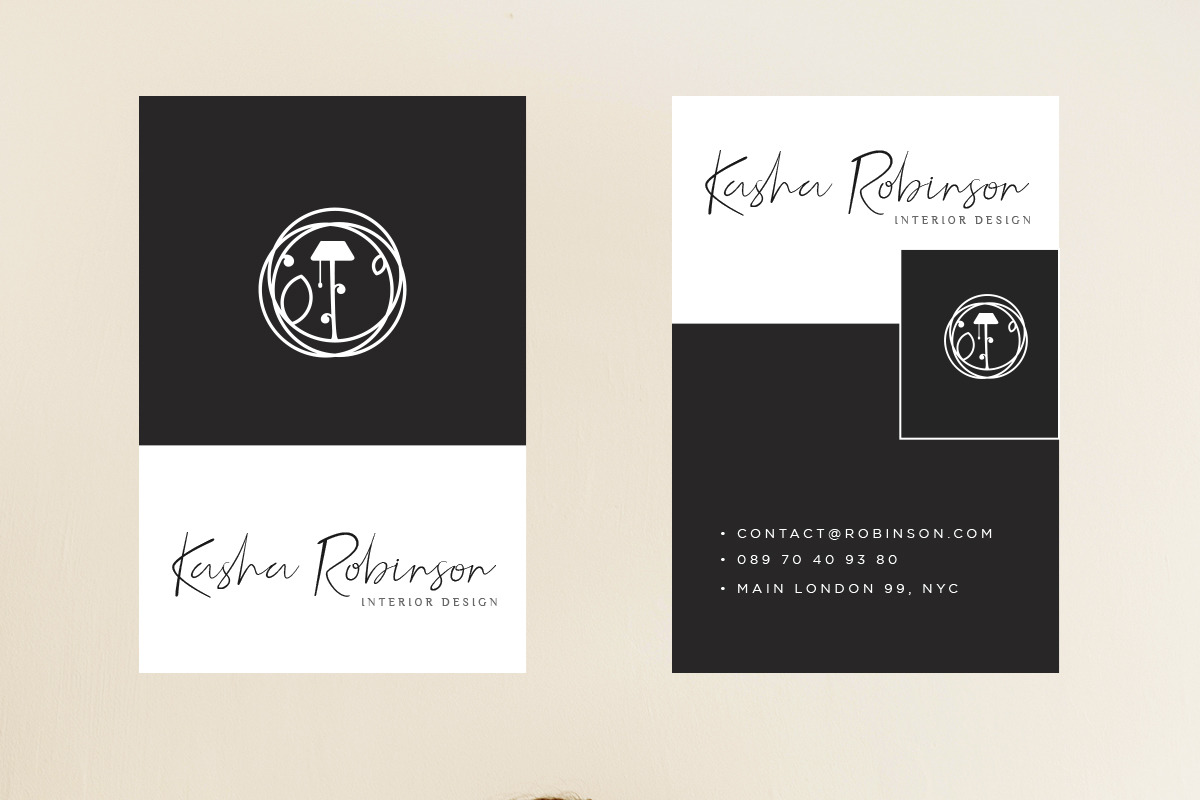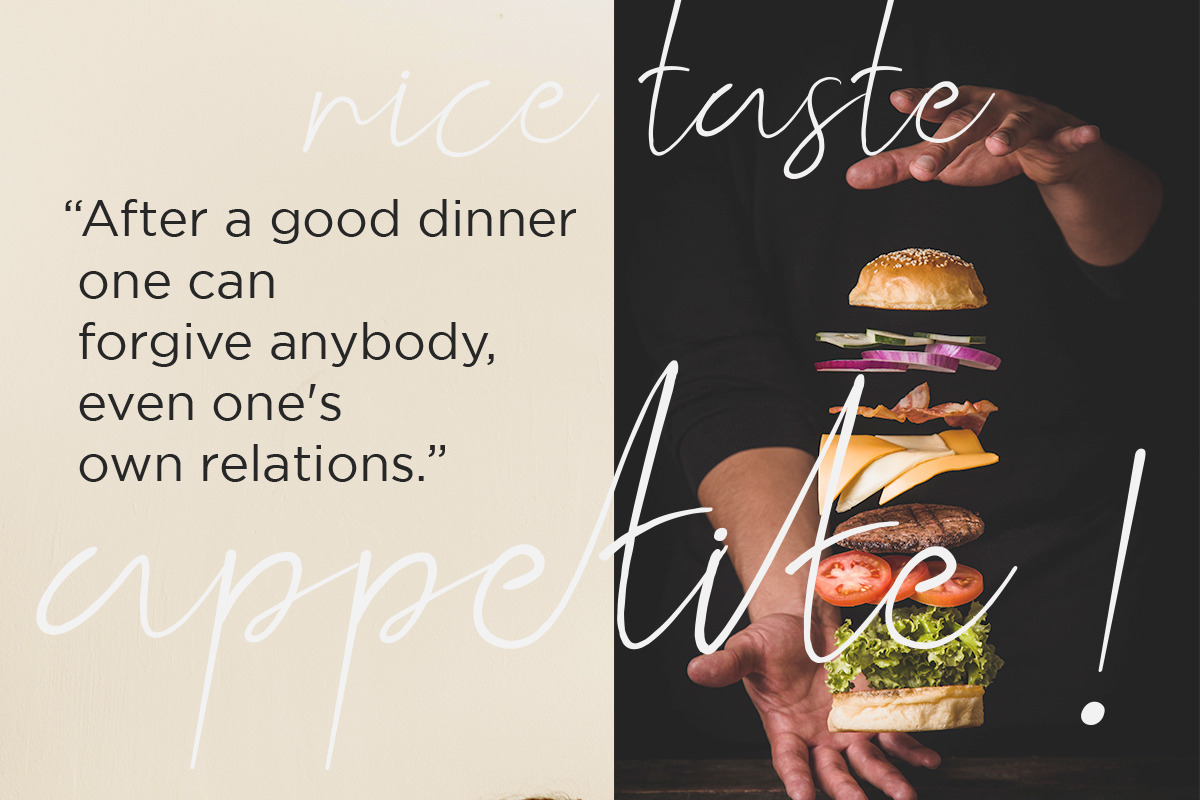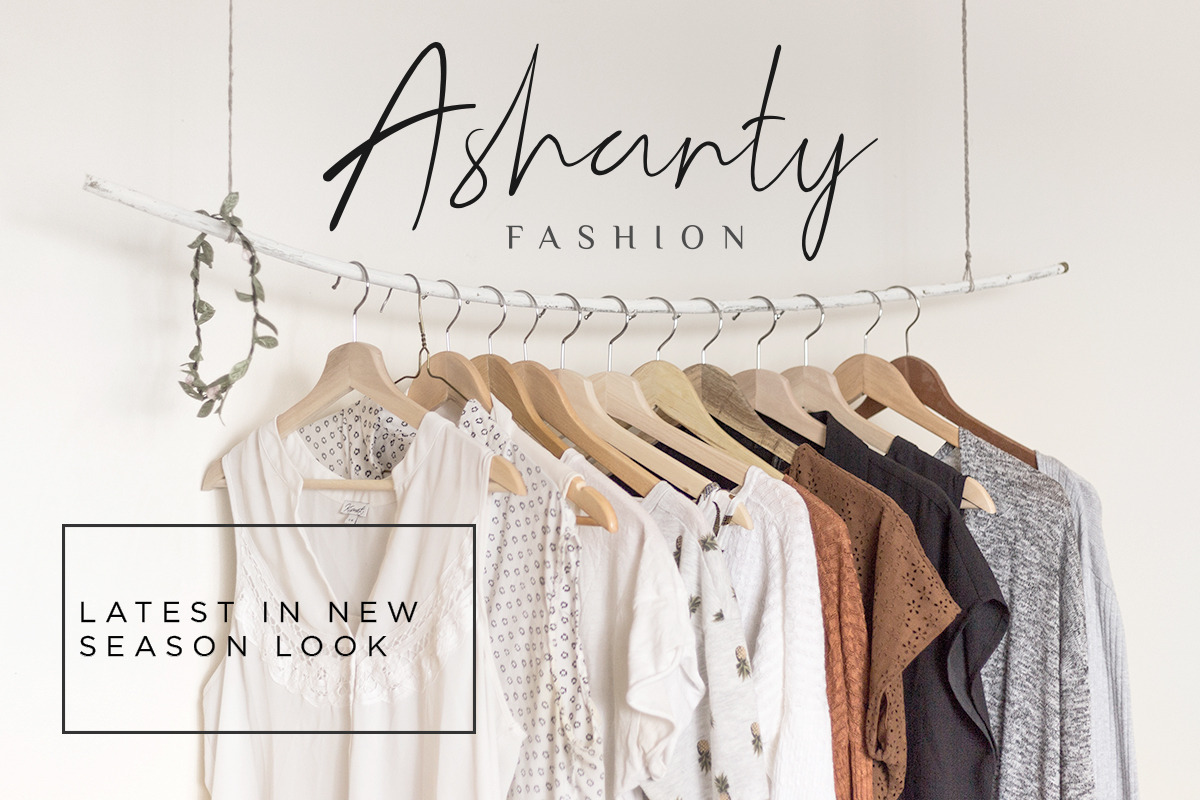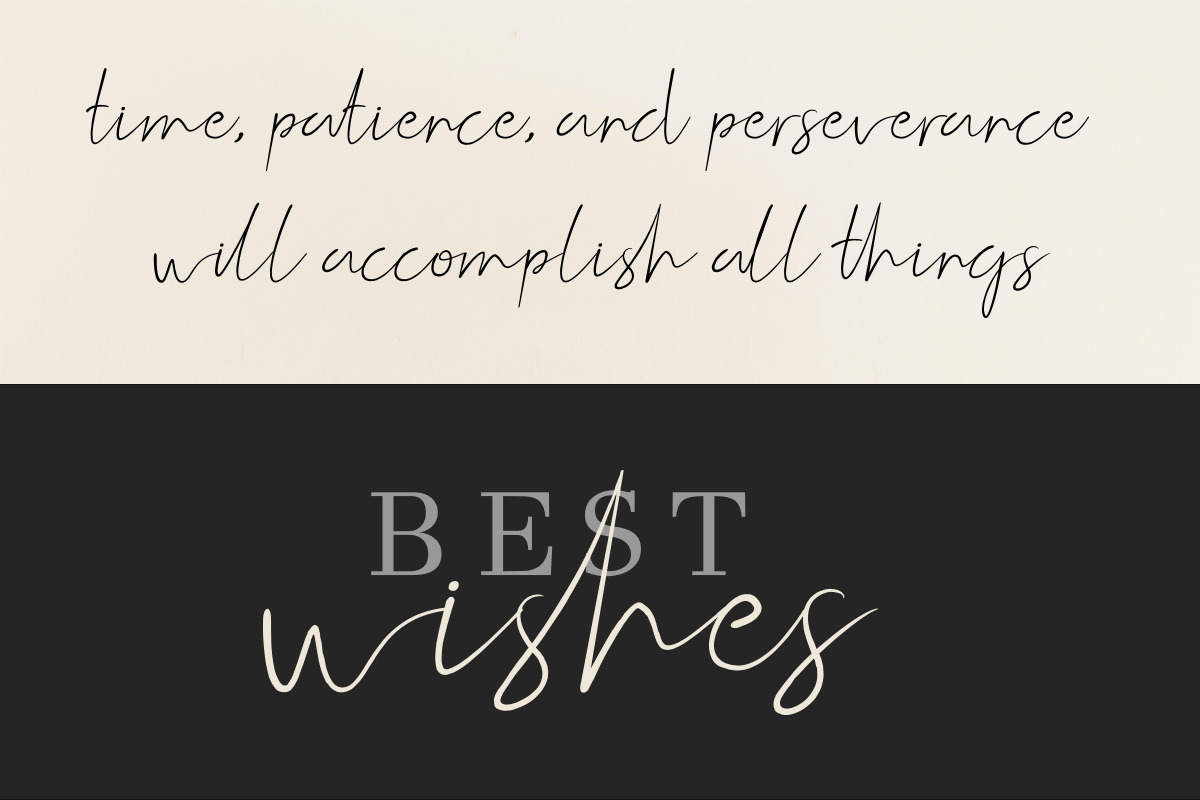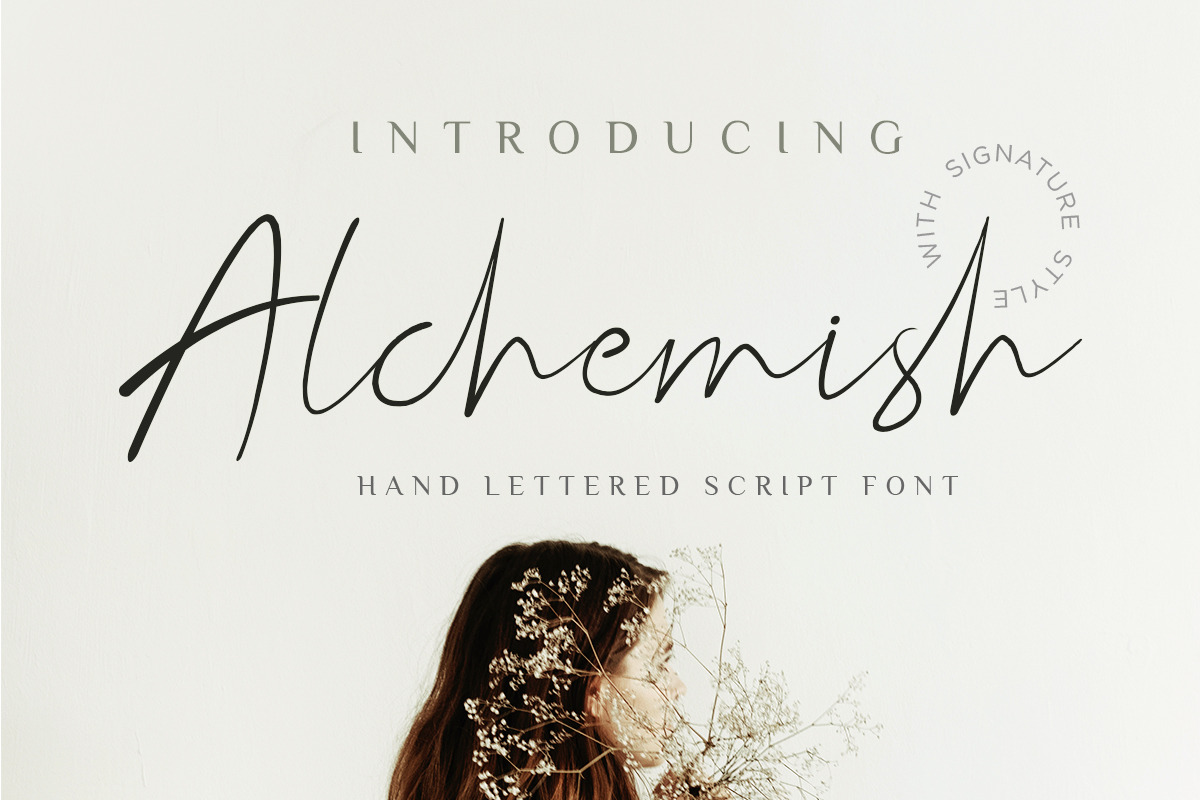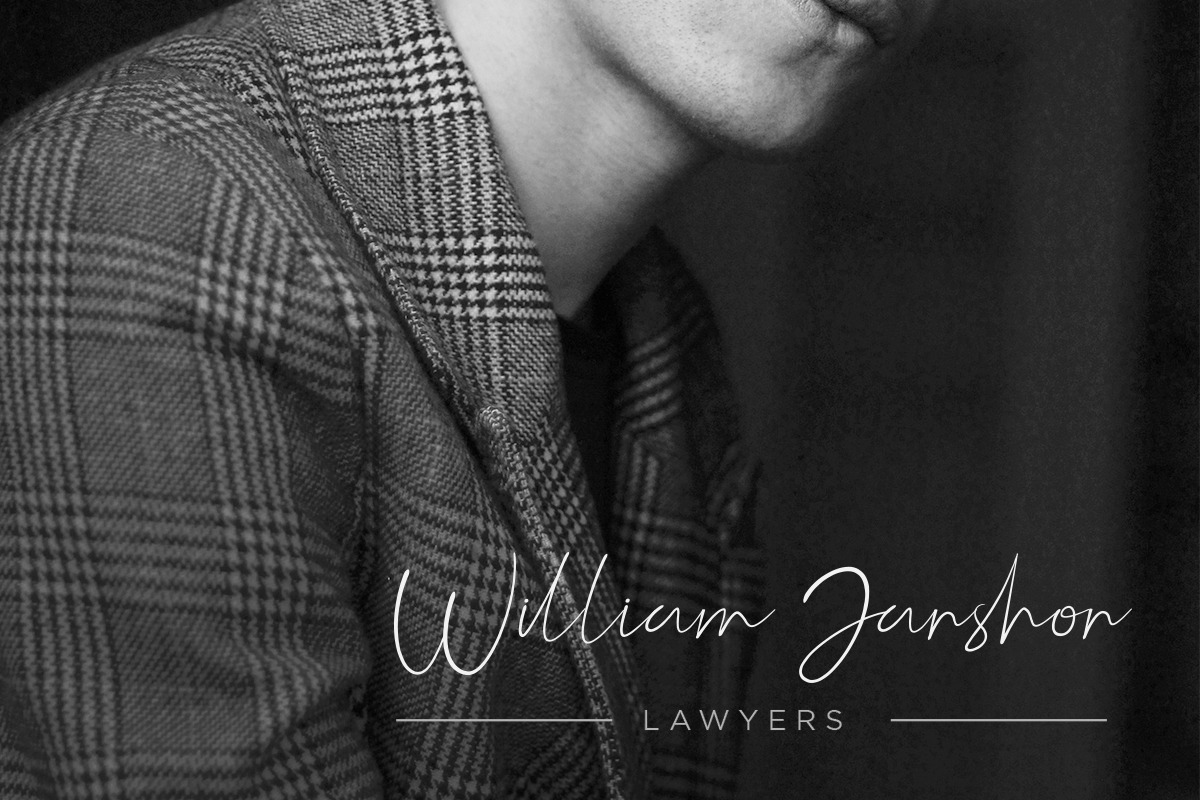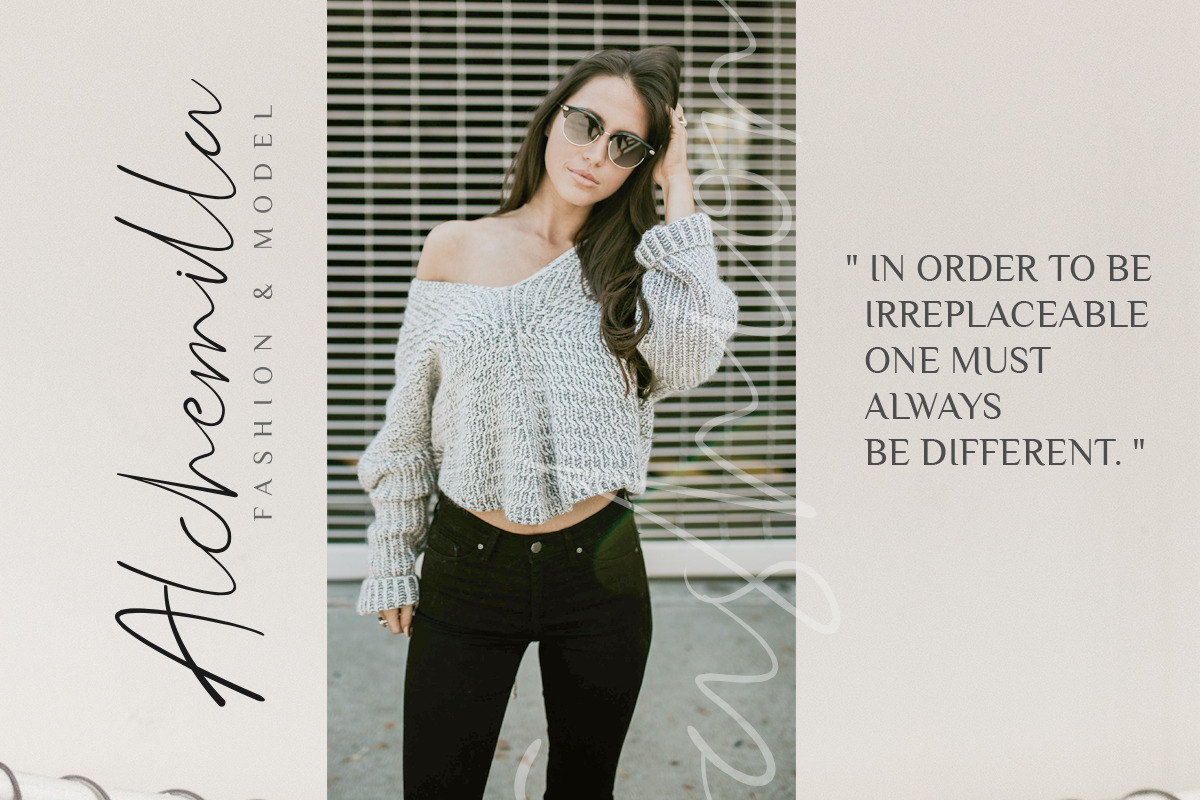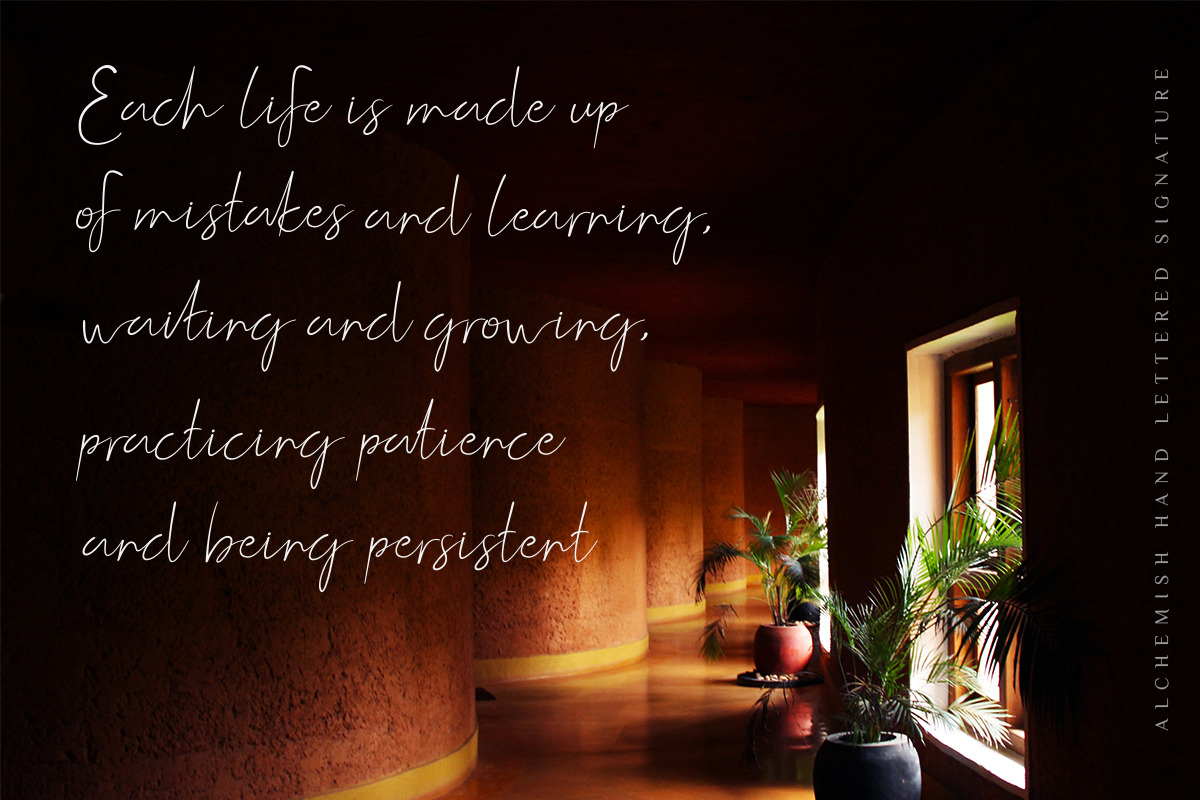
Alchemish Script Font
Introducing! New Signature Script Font. Alchemish!
Alchemish is modern feminine font, every single letters have been carefully crafted to make your text looks beautiful. With modern script style this font will perfect for many different project ex: logo, photography, watermark, quotes, blog header, poster, wedding, branding, logo, fashion, apparel, letter, invitation, stationery, etc.
Alchemish also includes, full set of uppercase and lowercase letters, multilingual symbols, numerals, punctuation. The font has smooth wet ink texture, so would be perfect for all types of printing techniques+you can do embroidery, laser cut, gold foil etc.
Alchemish has beautiful ligature following :
ab, af, ah ak al, at, eb, ek, el, et, cb, ch, cl, ib, ih, ik, il, it, ob, oh, ok, ol, ot, tt, ll, ss, sh, lt, th, Je, ne
Why Alchemish Script Font is worth a look
Alchemish Script Font by Say Studio fits naturally into Branding, posters, packaging, typography.